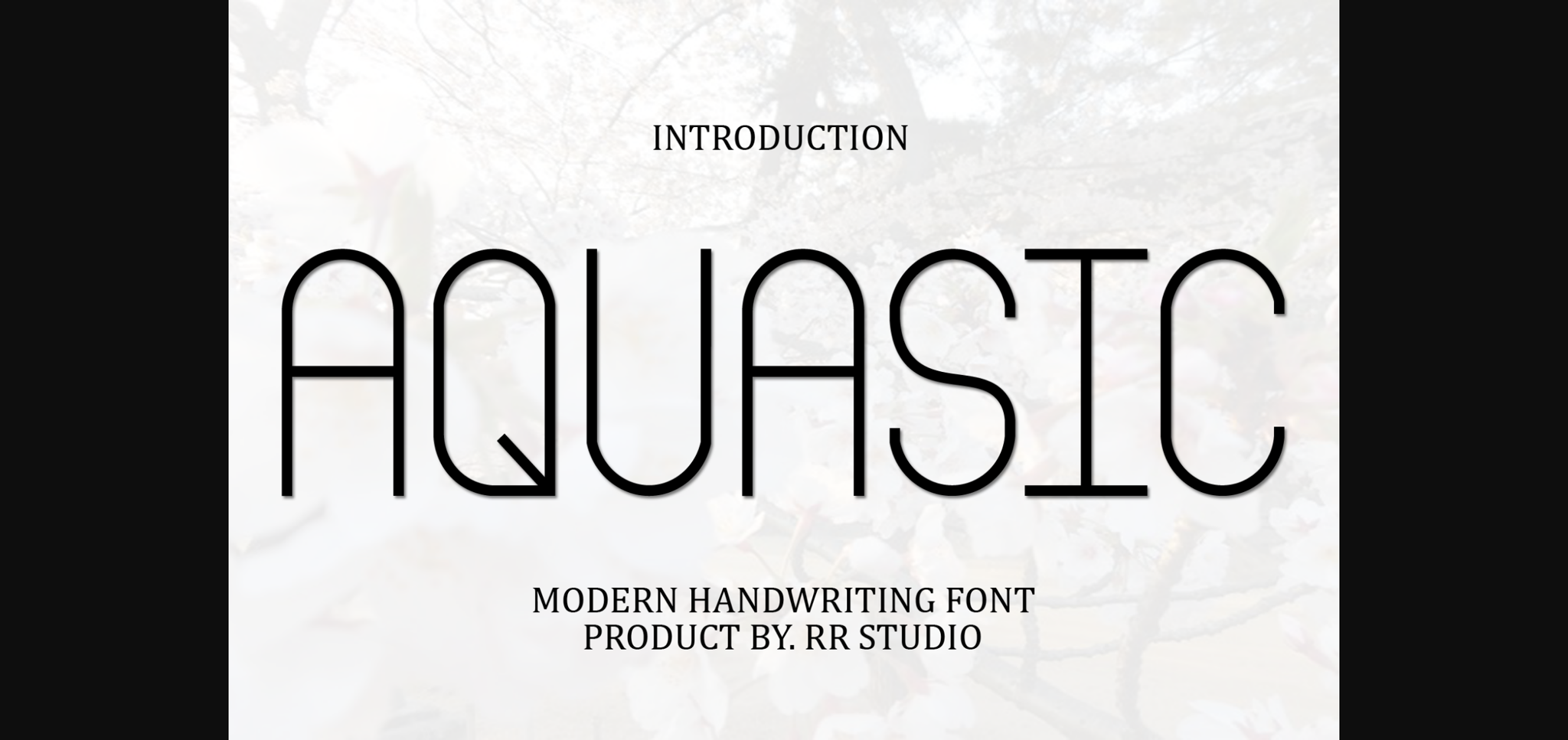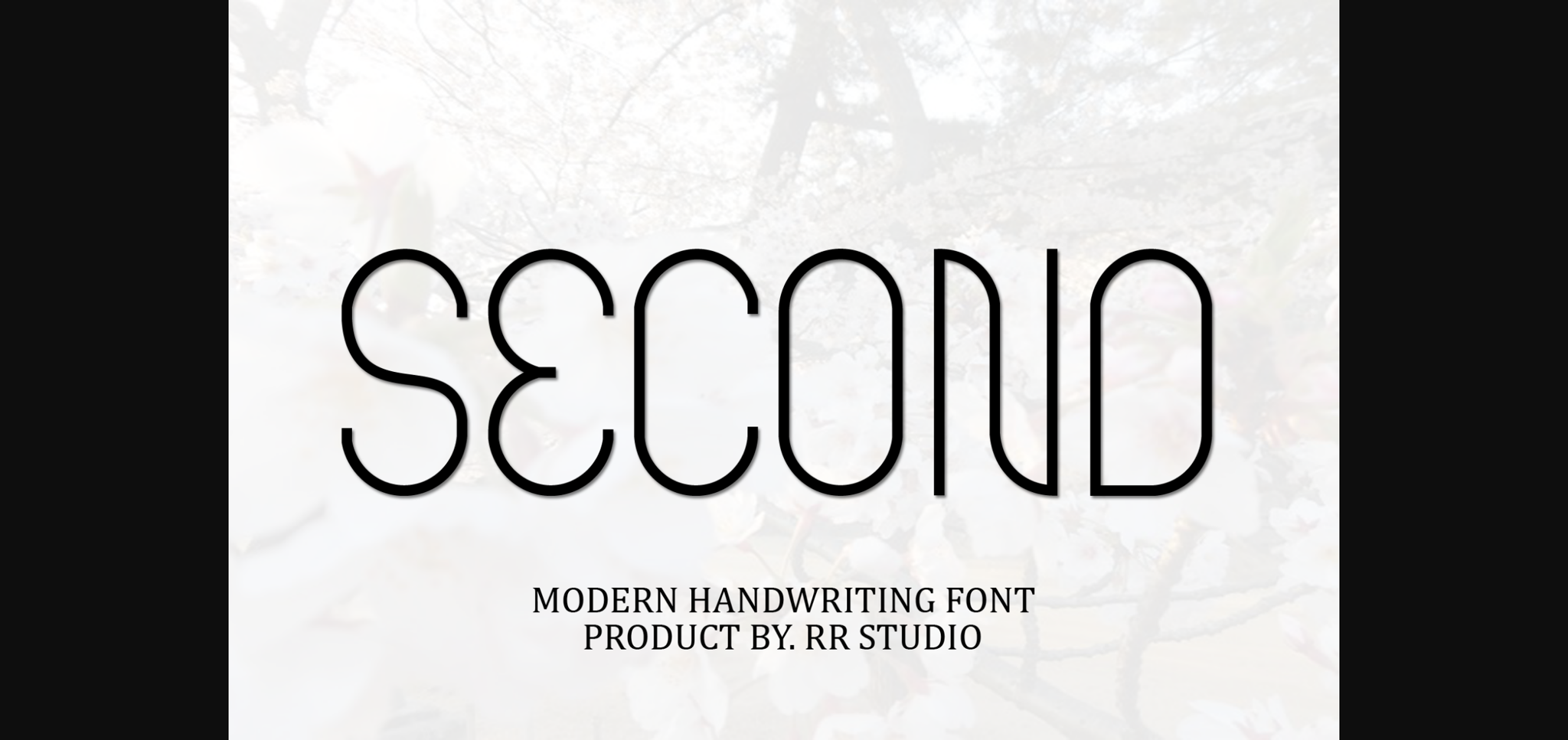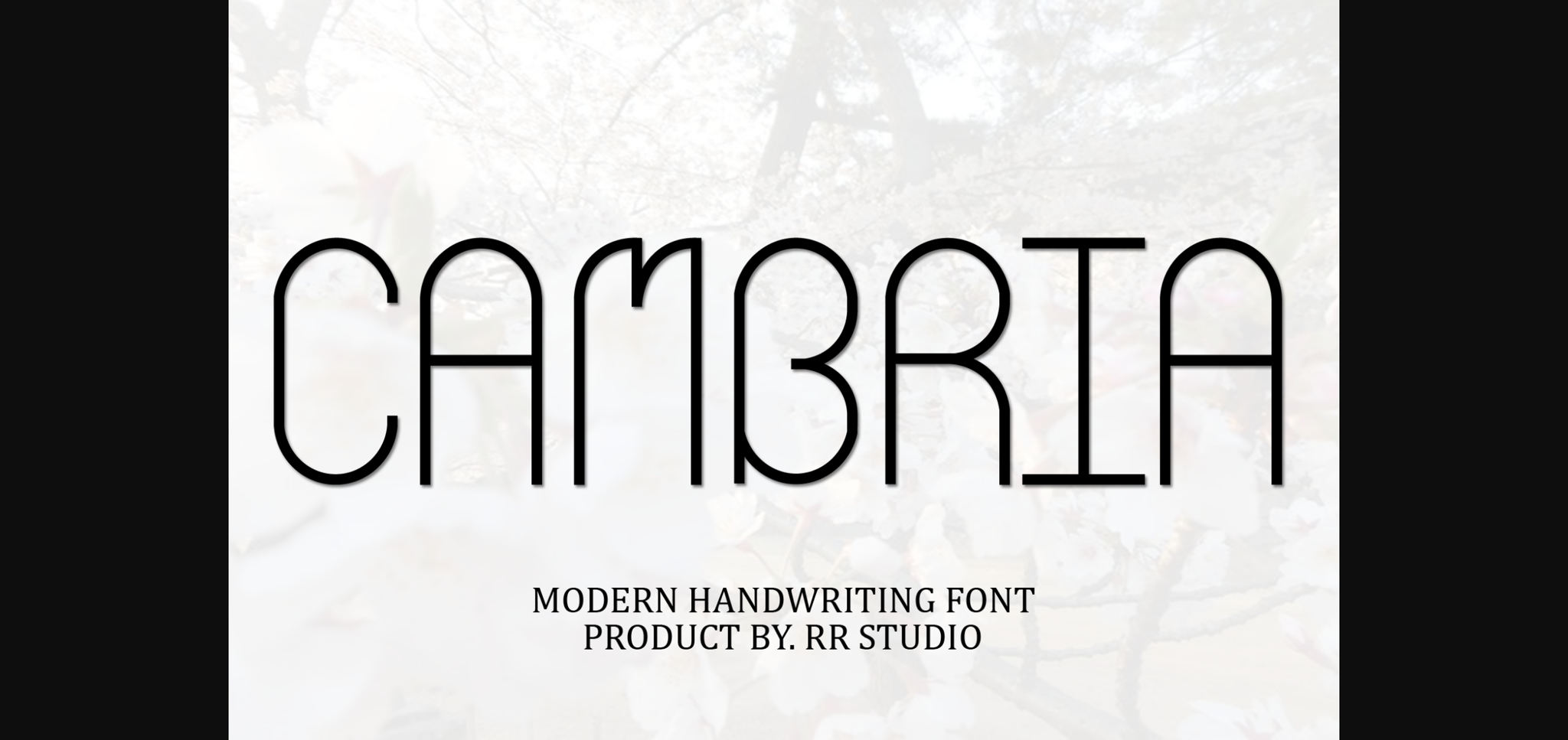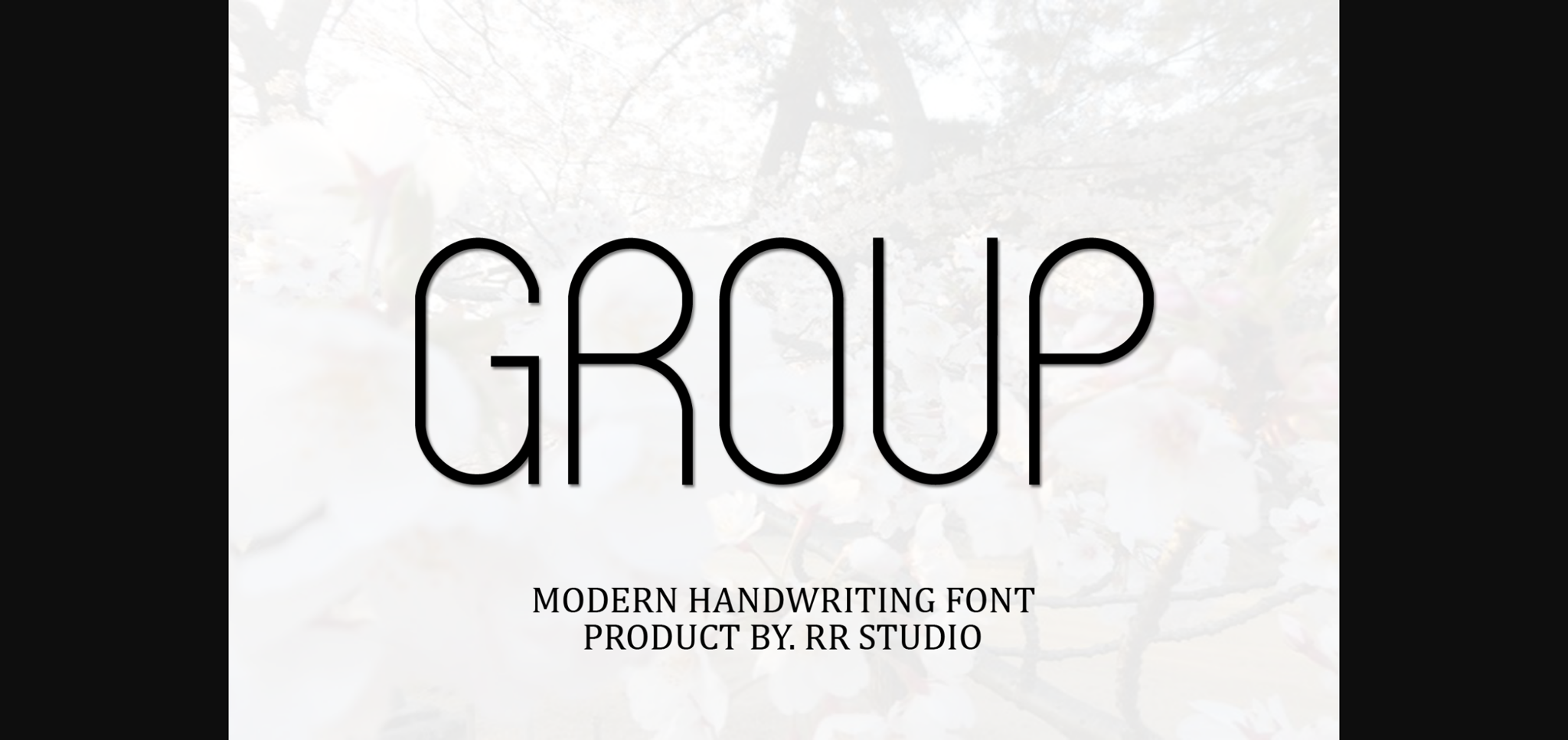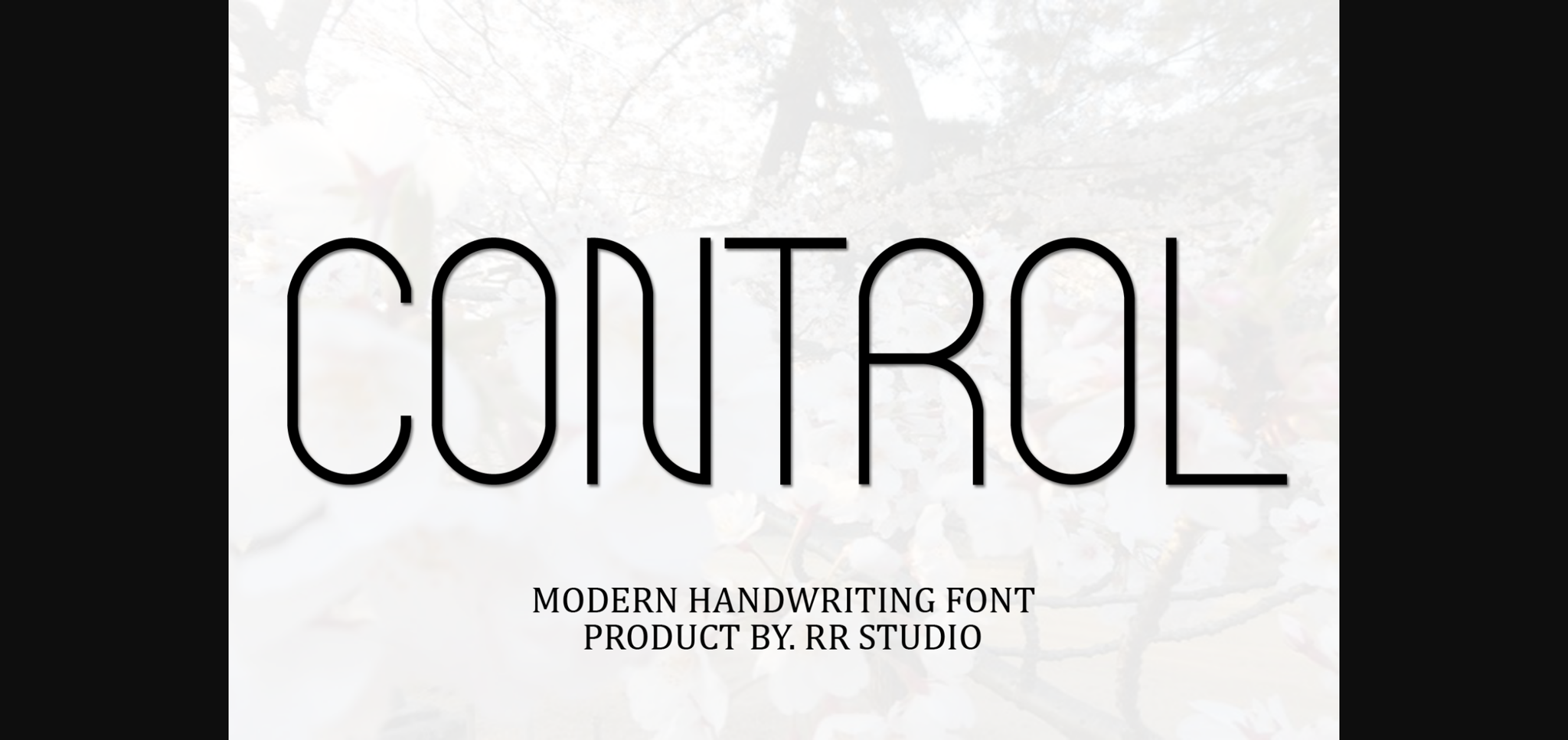
Aquasic Font
About Aquasic Font
Aquasic is a flowing, sleek, and trendy sans-serif font. Add it confidently to your crafty projects and enjoy the results!